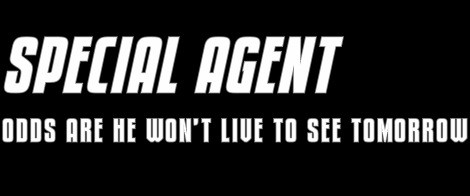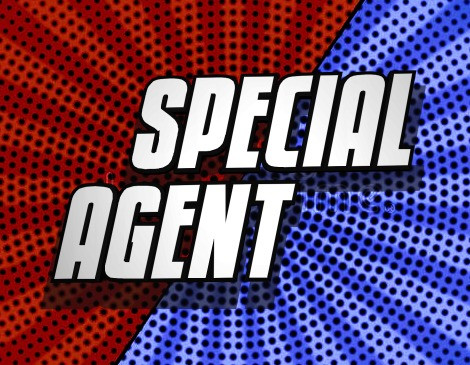
FRACTURED Display Font
Fractured is a sans serif display typeface based on the logos of “South Park: The Fractured but Whole”.
| Designer Name: | Felix’s Foundry |